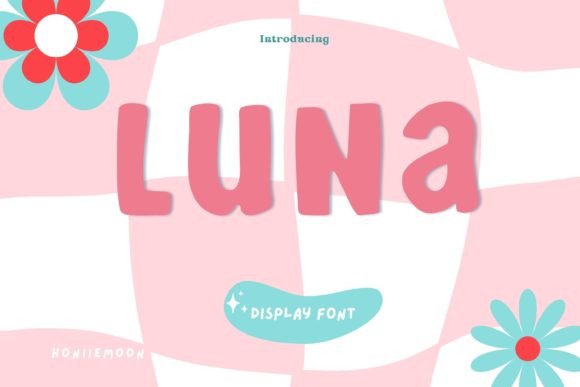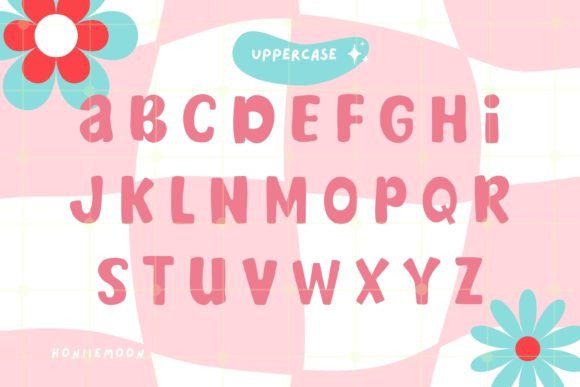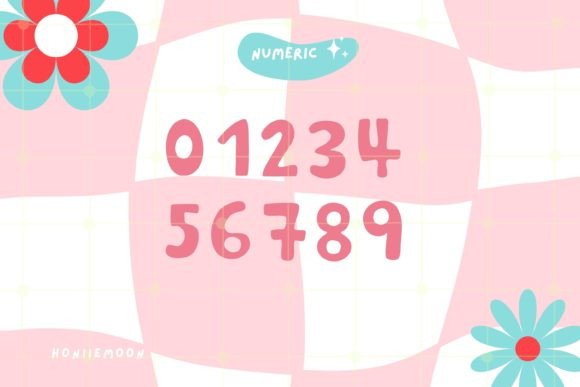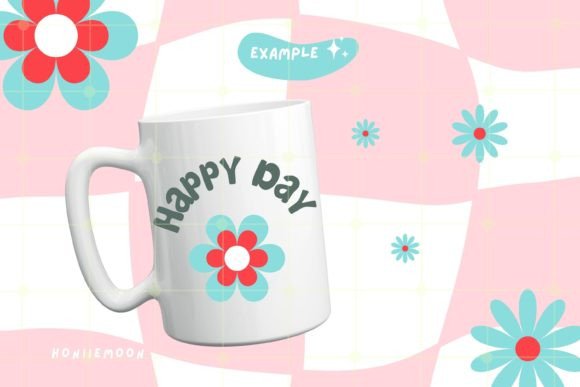
Luna Font: A Cute & Playful Display Font for DIY & Cricut!
About the Luna Font
Meet Luna Font, a stunning font that brings a touch of elegance and professionalism to any design. LUNA is a cool and fun display font. It looks both cute and jolly and it will enhance each of your designs. The only limit is your imagination. Add this colorful and bold display font to each of your creative ideas and notice how it makes them come alive!
Luna excels as a display font for headlines, posters, and branding projects requiring a playful yet bold aesthetic. Its strong character makes it ideal for children’s products, playful brands, or projects needing a touch of whimsy. Avoid using Luna for body text or UI elements; its unique forms are not optimized for readability in extended passages.
Pairing Luna with a clean sans-serif like Open Sans for body copy creates a balanced and accessible design. For a more sophisticated feel, consider pairing it with a classic serif such as Garamond. Alternatively, a geometric sans-serif like Montserrat would offer a modern contrast to Luna’s organic forms.
Luna’s overall personality is best described as bold and playful, offering a vibrant and approachable feel. Its friendly energy makes it a strong choice for projects aiming for a lighthearted and memorable impression.
Luna Font Usage Examples
Luna Font Example